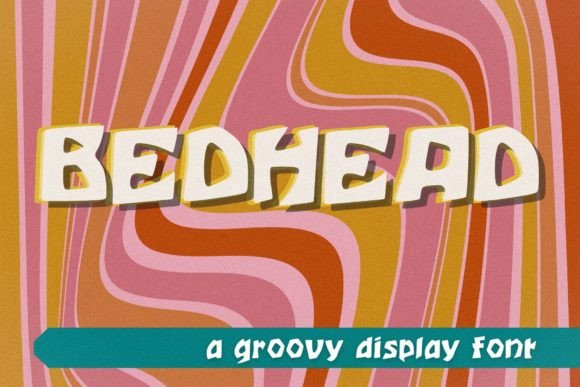
Introducing Bedhead Font: The Ultimate Cartoon Display Font
Are you looking for a font that can add a playful and creative touch to your next project? Look no further than Bedhead Font, a display font with a cartoon style that’s perfect for a variety of applications. In this article, we’ll explore the features and benefits of Bedhead Font, and show you how it can elevate your designs to the next level.
What is Bedhead Font?
Bedhead Font is a display font designed with a cartoon style in mind. Its bold, playful, and whimsical design makes it perfect for projects that require a fun and creative approach. The font features rounded edges, irregular shapes, and a distinctive charm that sets it apart from other fonts.
Key Features of Bedhead Font
- Cartoon-style design: Bedhead Font features a unique cartoon-style design that’s perfect for creating playful and engaging content.
- Display font: This font is designed specifically for display purposes, making it ideal for headlines, titles, and other attention-grabbing elements.
- Bold and playful: Bedhead Font is bold and playful, making it perfect for projects that require a fun and energetic vibe.
- Versatile: This font can be used for a wide range of projects, from cartoon projects and posters to quotes, album covers, logos, and business cards.
Use Cases for Bedhead Font
Bedhead Font is a versatile font that can be used for a variety of projects, including:
- Cartoon projects: Bedhead Font is perfect for cartoon projects, such as animated videos, comics, and children’s books.
- Posters and flyers: This font is great for creating eye-catching posters and flyers that require a bold and playful design.
- Quotes and typography: Bedhead Font can be used to create inspiring quotes and typography that showcase your message in a fun and creative way.
- Album covers and music branding: This font is perfect for creating album covers, music posters, and other music-related branding materials.
- Logos and business cards: Bedhead Font can be used to create unique and memorable logos and business cards that showcase your brand’s personality.
Benefits of Using Bedhead Font
Using Bedhead Font can bring a range of benefits to your design projects, including:
- Unique and creative designs: Bedhead Font allows you to create unique and creative designs that stand out from the crowd.
- Playful and engaging content: This font helps you create playful and engaging content that resonates with your audience.
- Flexibility and versatility: Bedhead Font can be used for a wide range of projects, making it a versatile addition to your font library.
Tips for Using Bedhead Font
Here are some tips for getting the most out of Bedhead Font:
- Experiment with different sizes and colors: Bedhead Font looks great in a variety of sizes and colors, so don’t be afraid to experiment and find the perfect combination for your project.
- Pair with complementary fonts: This font pairs well with other fonts, so try combining it with complementary fonts to create a unique and visually appealing design.
- Use for headlines and titles: Bedhead Font is perfect for headlines and titles, so use it to grab attention and draw the reader in.
| Font Name | Bedhead Font |
| Author | The Tenacious Type Studio |
Bedhead Font is a unique and versatile display font with a cartoon style that’s perfect for a wide range of design projects. Its bold, playful, and whimsical design makes it ideal for creating engaging and creative content. Whether you’re working on a cartoon project, poster, quote, album cover, logo, or business card, Bedhead Font is a great choice. So why not give it a try and see how it can elevate your designs to the next level?